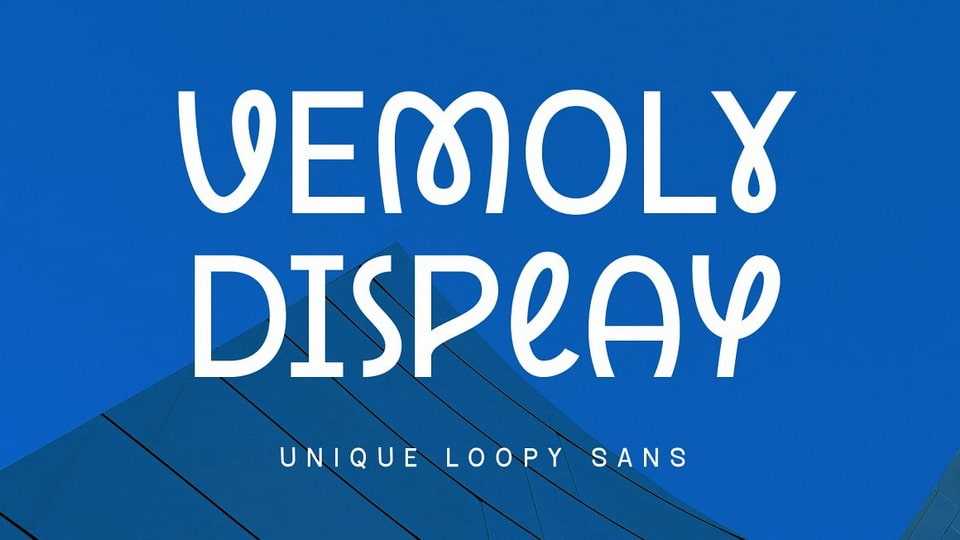
Download Vemoly Display font, a minimalist sans serif typeface that is perfect for your upcoming aesthetic project. This font provides a combination of basic sans serif and a loopy style.